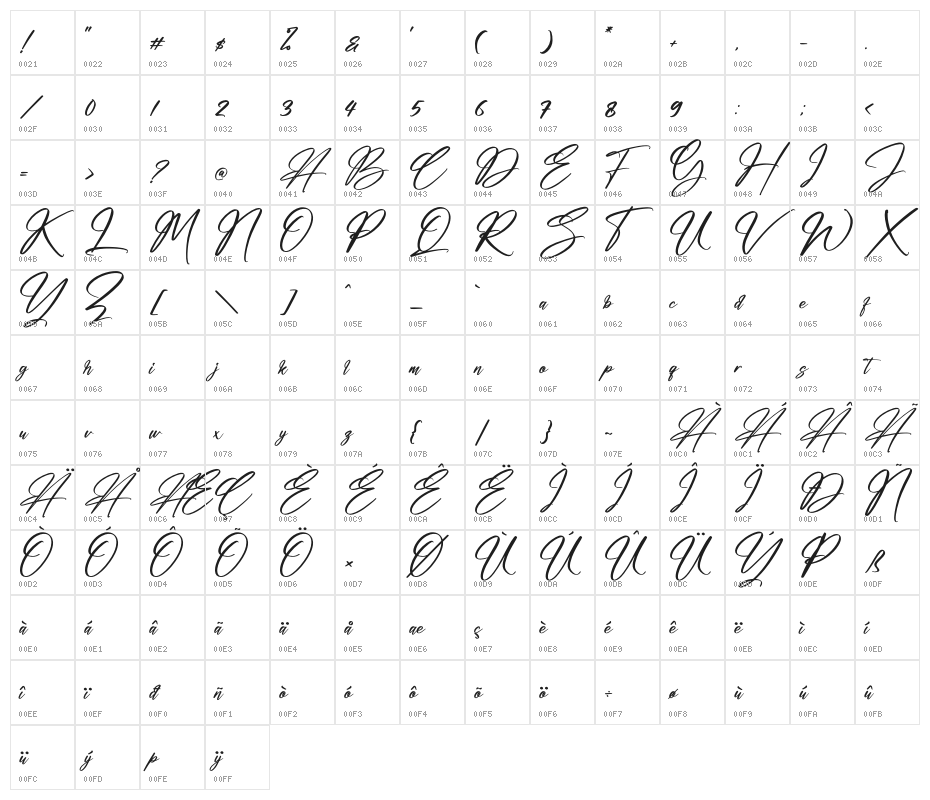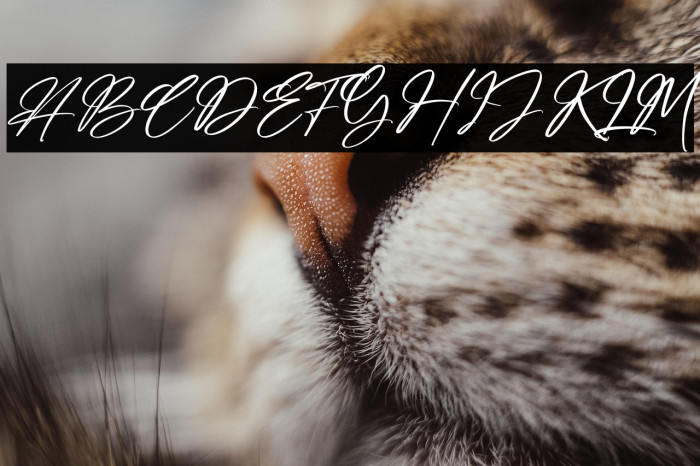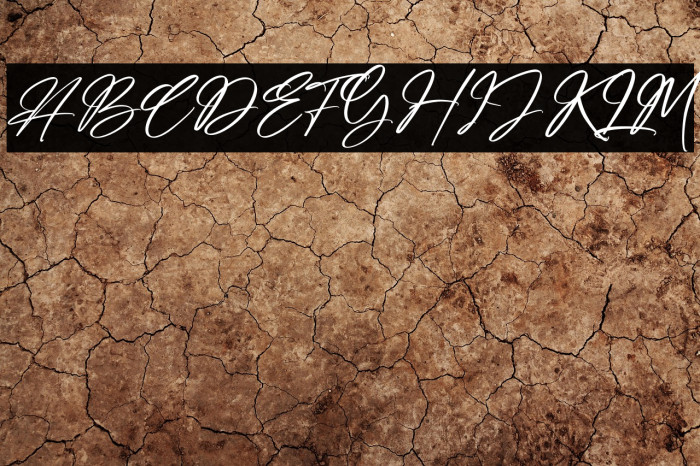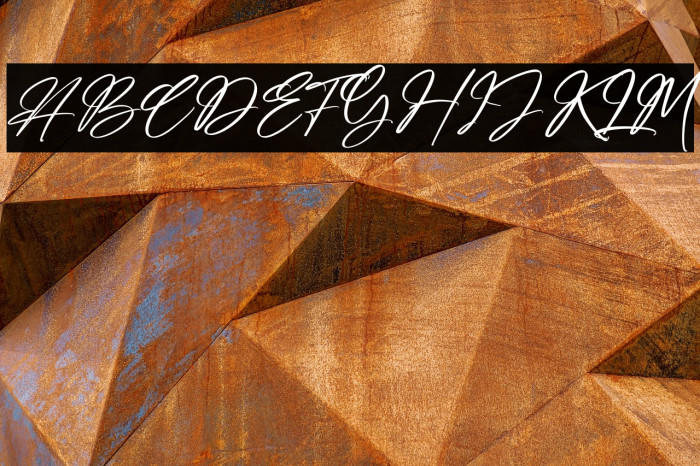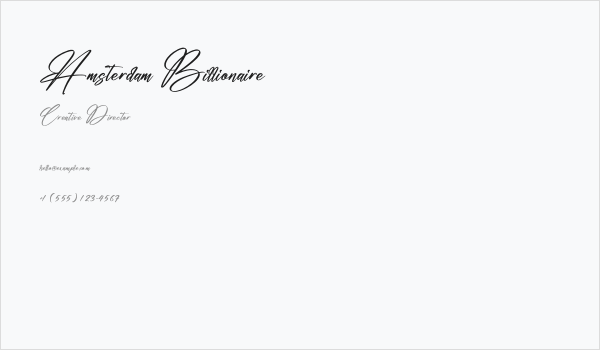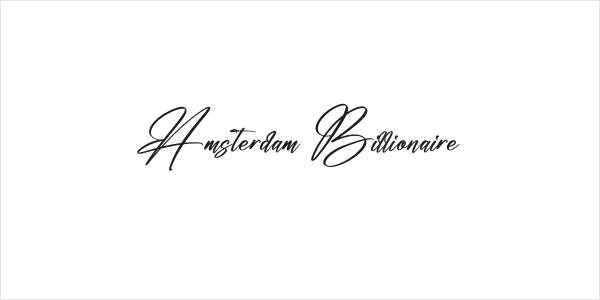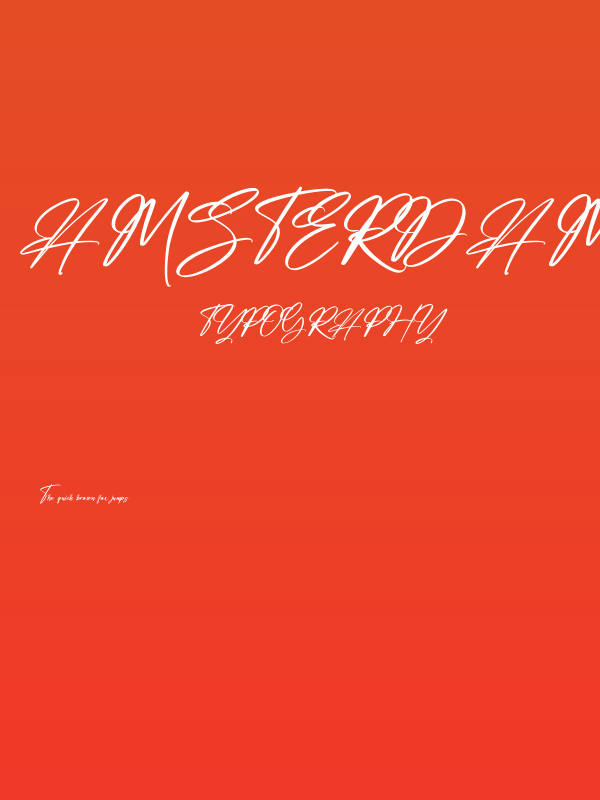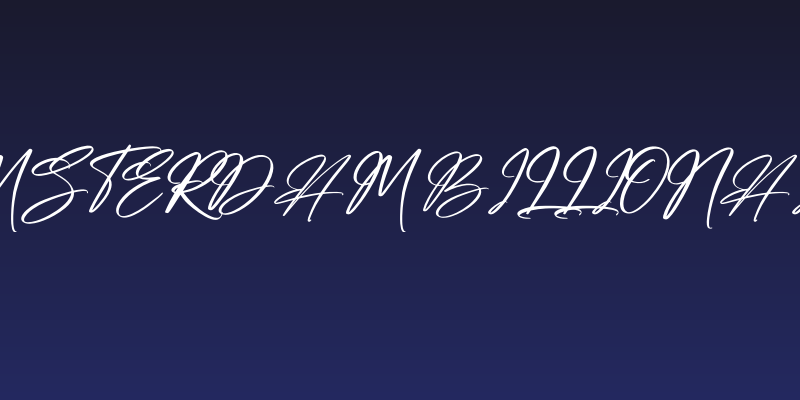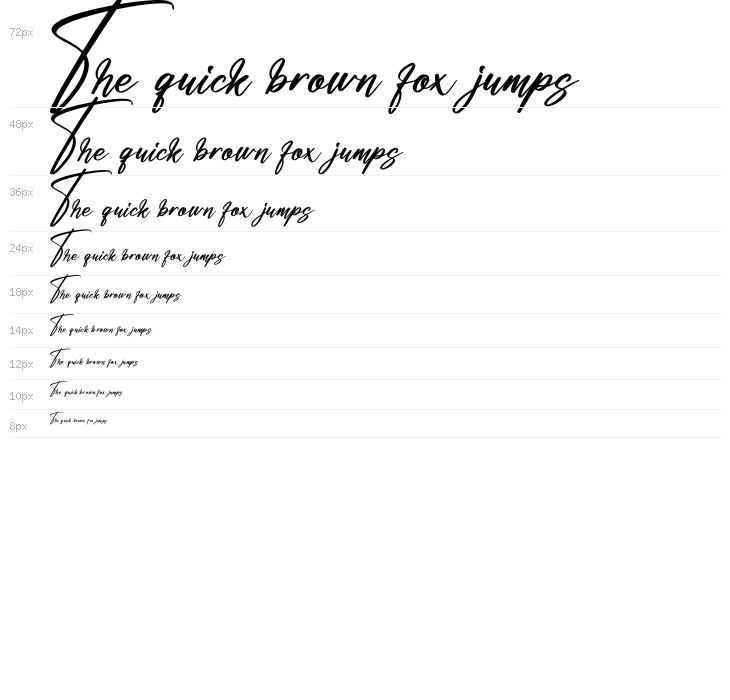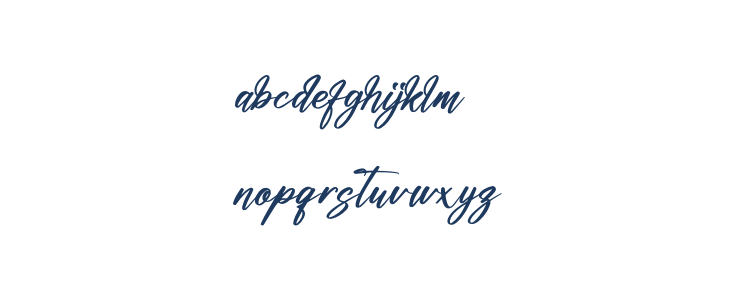
Amsterdam Billionaire Font
Amsterdam Billionaire Description
This font exudes a luxurious and elegant script style, characterized by its flowing, cursive letterforms that mimic the fluidity of handwritten calligraphy. The uppercase letters are particularly ornate, with sweeping curves and extended strokes that add a sense of grandeur and sophistication. The lowercase letters maintain a consistent style, offering a harmonious blend of readability and artistic flair. The numerals and special characters are designed to complement the overall aesthetic, ensuring a cohesive look across all text. This font is ideal for projects that require a touch of elegance and class, such as wedding invitations, high-end branding, or luxury product packaging.
| Proposed Projects | Wedding invitations, luxury branding, product packaging, elegant stationery. |